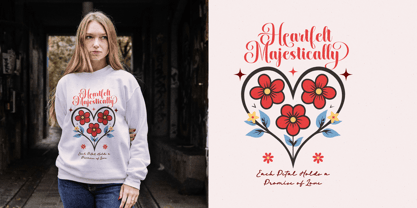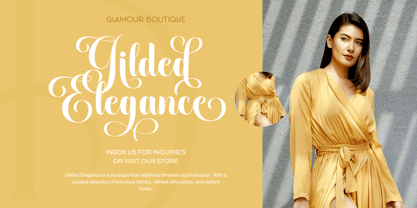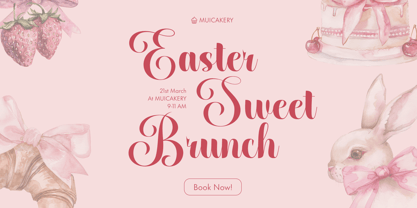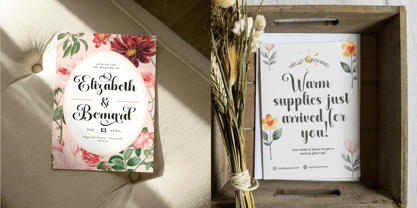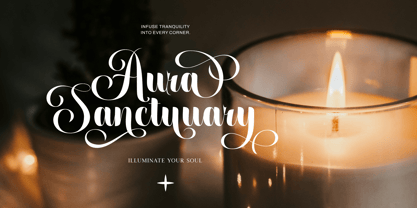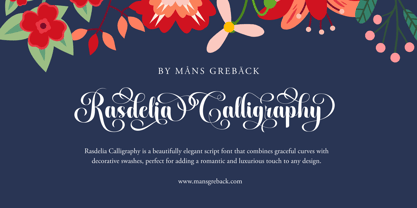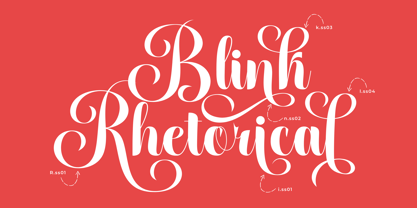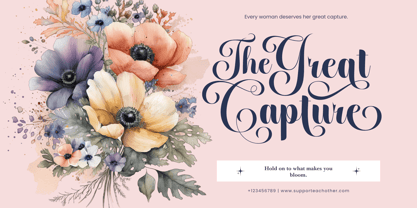
Rasdelia Swashed
by Mans Greback
The Rasdelia Swashed Font Family was designed by Måns Grebäck and published by Mans Greback. Rasdelia Swashed contains 4 styles and family package options. More about this family
Rasdelia Calligraphy is a bold script typeface with high-contrast curves and extravagant swashes. Designed with precision and flair, it merges classic calligraphy with modern typography, balancing delicacy with power. With thick downstrokes and elegant upswings, each letter flows into the next with rhythmic grace. The uppercase set is adorned with ornate loops, while the lowercase remains confident and smooth, making the design feel at once traditional and forward-looking. Ideal for creating a grand signature or a headline that speaks with unmistakable character. The font is built with advanced functionality and guaranteed top-notch quality, containing stylistic and contextual alternates, ligatures and more automatic and manual features; all to give you full control and customizability. It has extensive lingual support, covering all Latin-based languages, from North Europa to South Africa, from America to South-East Asia. It contains all characters and symbols you'll ever need, including all punctuation and numbers. Designed and created by Mans Greback.
Måns Grebäck is a type designer and font creator specializing in script typography, but with a portfolio containing a vast selection of styles. Typefaces from Måns Grebäck are used as company and product logotypes, as well as headlines and in advertisement by a wide range of industries world-wide. Founded by Måns Grebäck in 2010, Mans Greback AB originally went under the name of Mawns Fonts and later Aring Typeface AB. While the foundry has its seat Örebro, Sweden, Måns also lives in Portugal. The Premium Foundry page can be viewed Here.